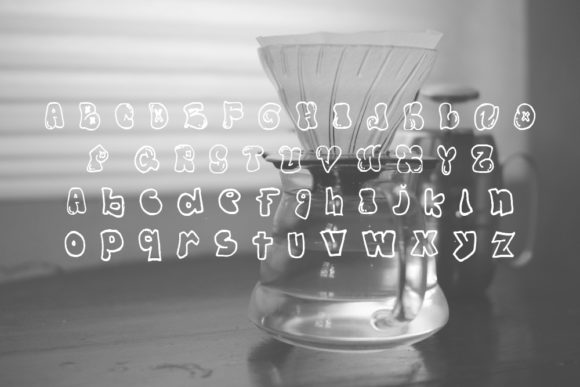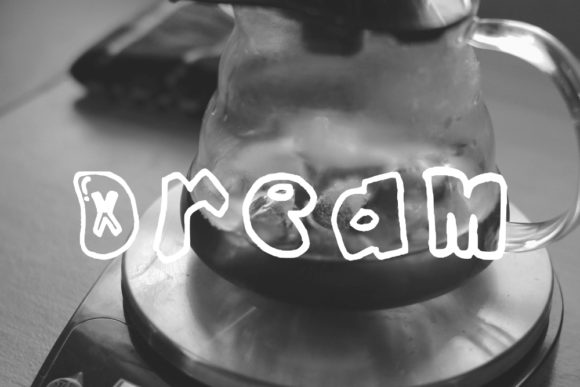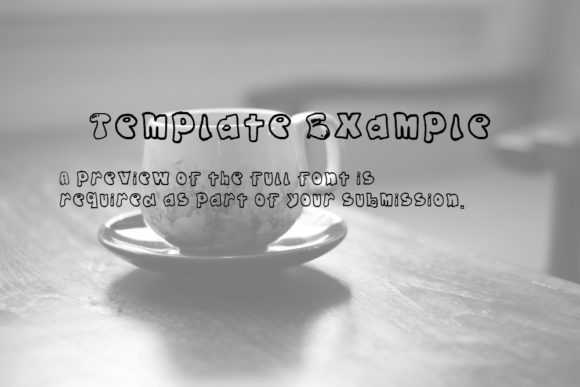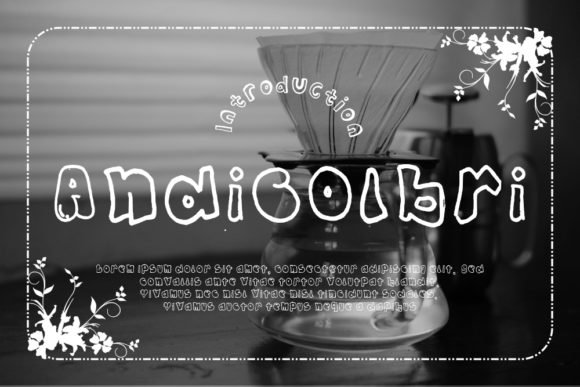
Introduction to Andicolbri Font
Andicolbri is a distinct and interesting display font.
A little bit quirky, this font looks incredibly adept on a wide variety of designs and creative ideas .